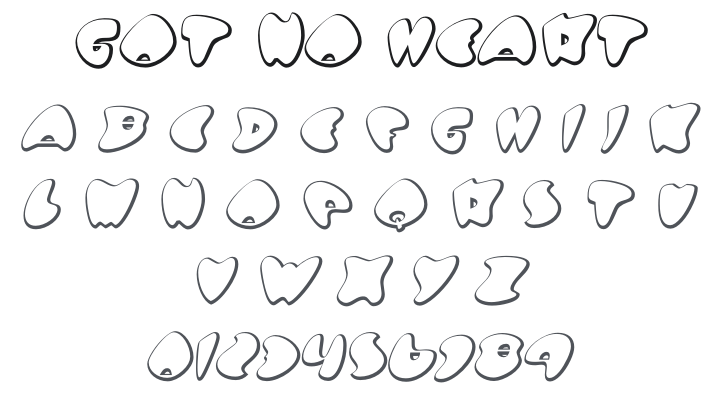
Got No Heart Font Family
About Got No Heart
Got No Heart is a quirky novelty display typeface inspired by the kidney-shaped coffee tables of 1950s mid-century modern design — its rounded, organic letterforms have that same softly curved, biomorphic character. Available in outline and solid variants, it radiates retro lounge charm. Perfect for 1950s-themed designs, atomic age branding, vintage diner aesthetics, retro party invitations, and playful novelty headlines.